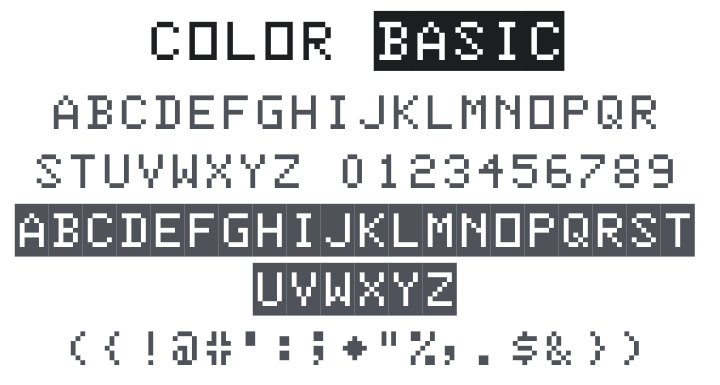
Color Basic Font
About Color Basic
Color Basic is a pixel typeface faithfully recreating the character set of the TRS-80 Color Computer (CoCo) — one of the earliest home computers of the early 1980s. It includes inverse capitals where lowercase would normally be, plus block elements for building crude low-res graphics. Perfect for retro computing tributes, chiptune aesthetics, pixel art projects, and nostalgic 8-bit game interfaces.